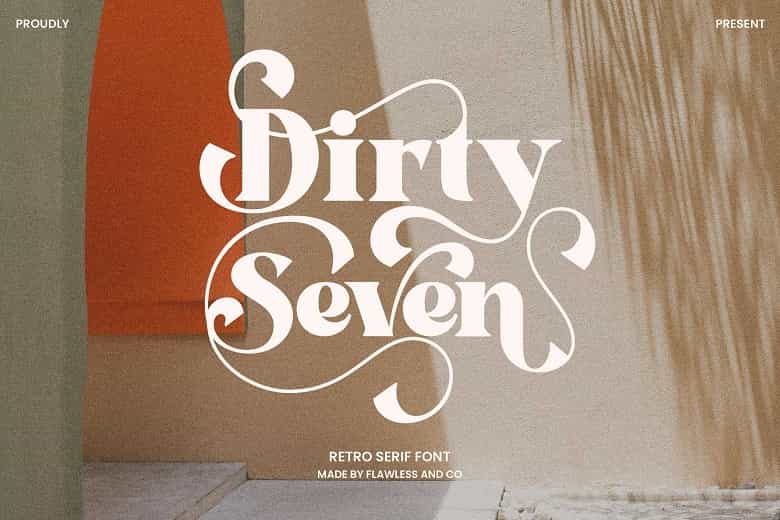
Dirty Seven is a retro serif font. Travel back in time with the “Dirty Seven” font – a classic display serif inspired by the golden age of typography. Featuring a strong and impactful typography, the Dirty Seven font is perfect for giving your designs a closer look and feel of the old school aesthetics.